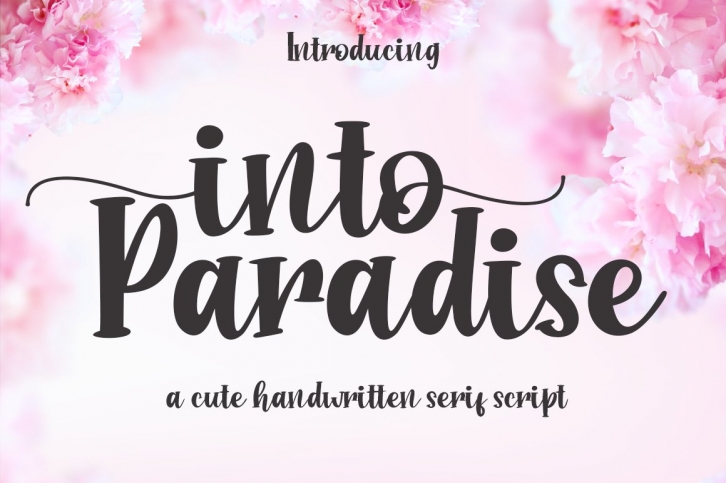
Into Paradise Cute Serif Script Handwritten FONT Download
Into Paradise  Cute Serif Script Handwritten Font Download
Into Paradise Cute Serif Script Handwritten is a beautiful font that was designed by Haksen. It's a great choice for designers and creatives who need such a font. It was released on May 28, 2020 and the file size is 21.89 MB. Into Paradise Cute Serif Script Handwritten may give a more youthful, expressive and casual look to your project. It is a very beautiful, refined, elegant, and high-quality font.